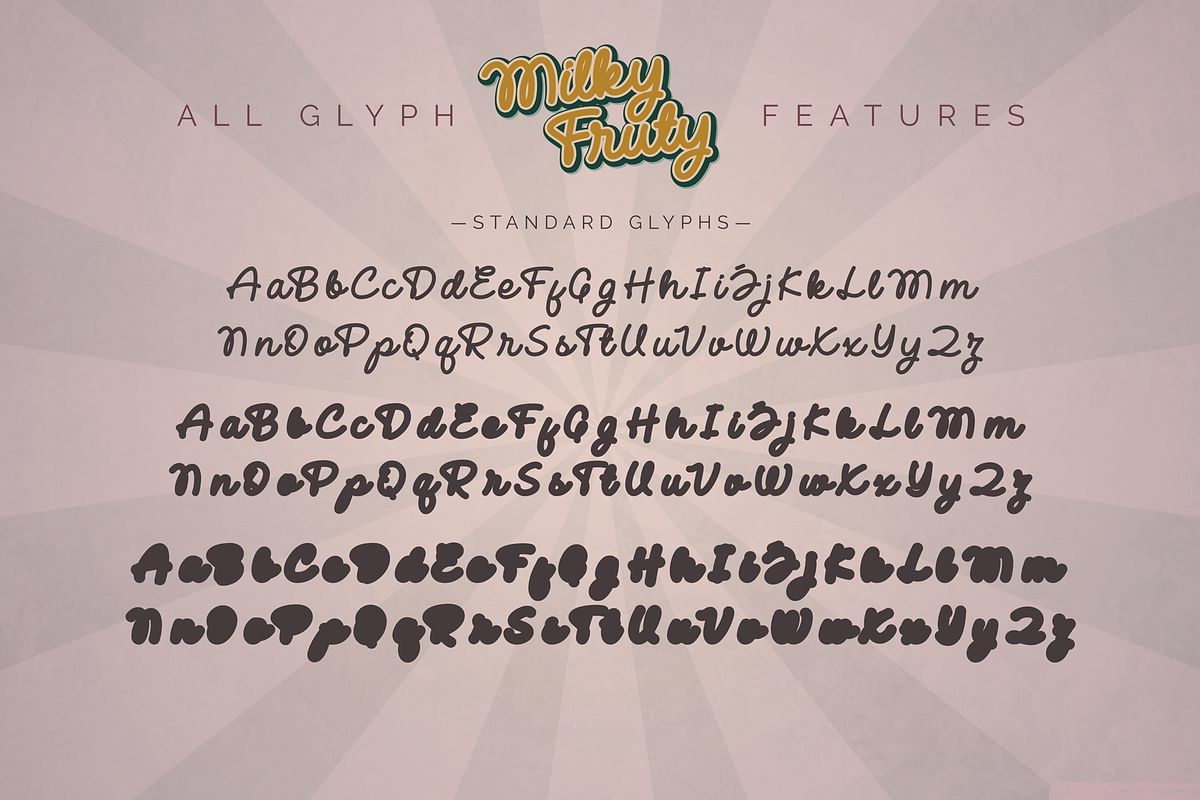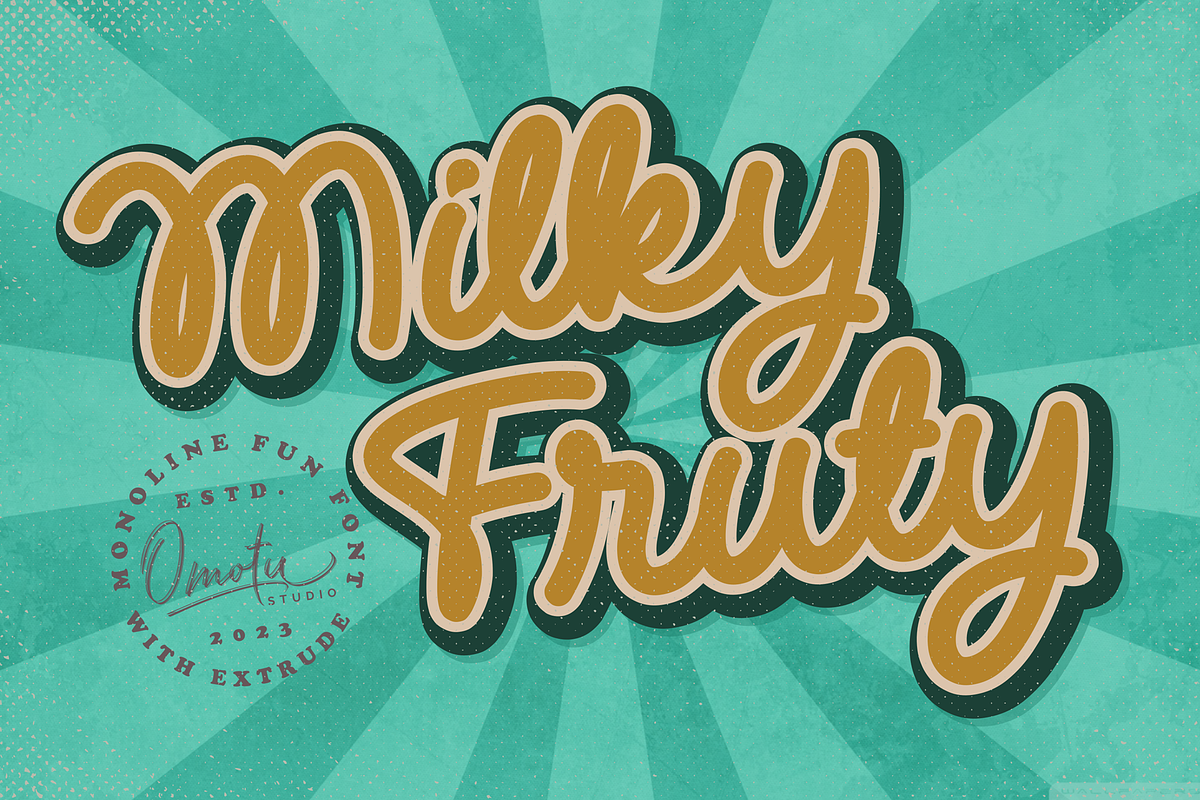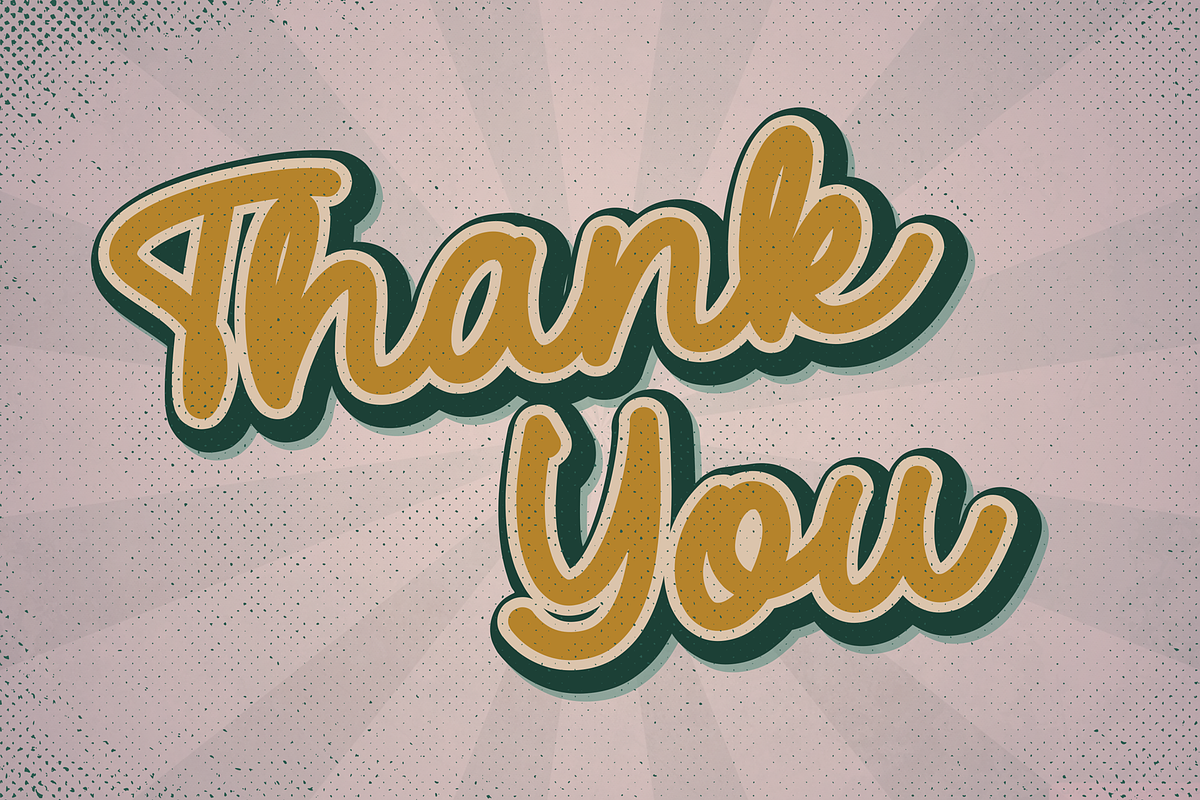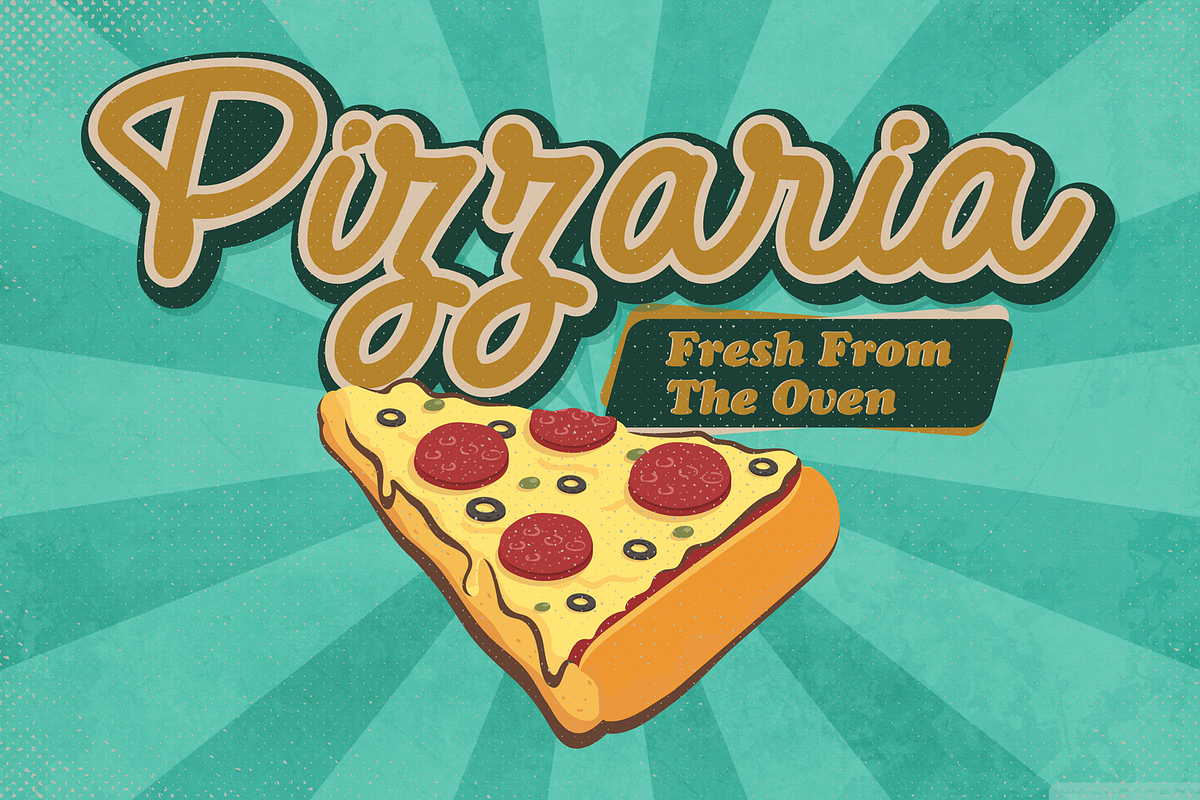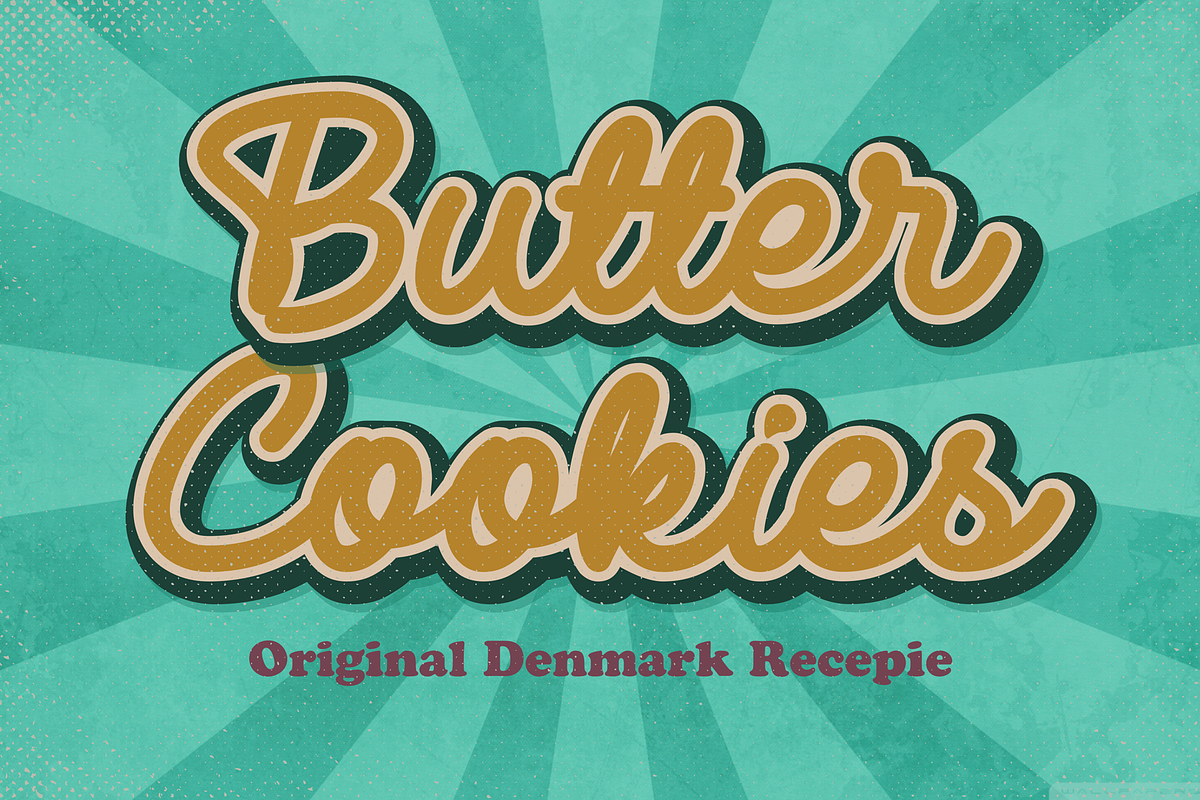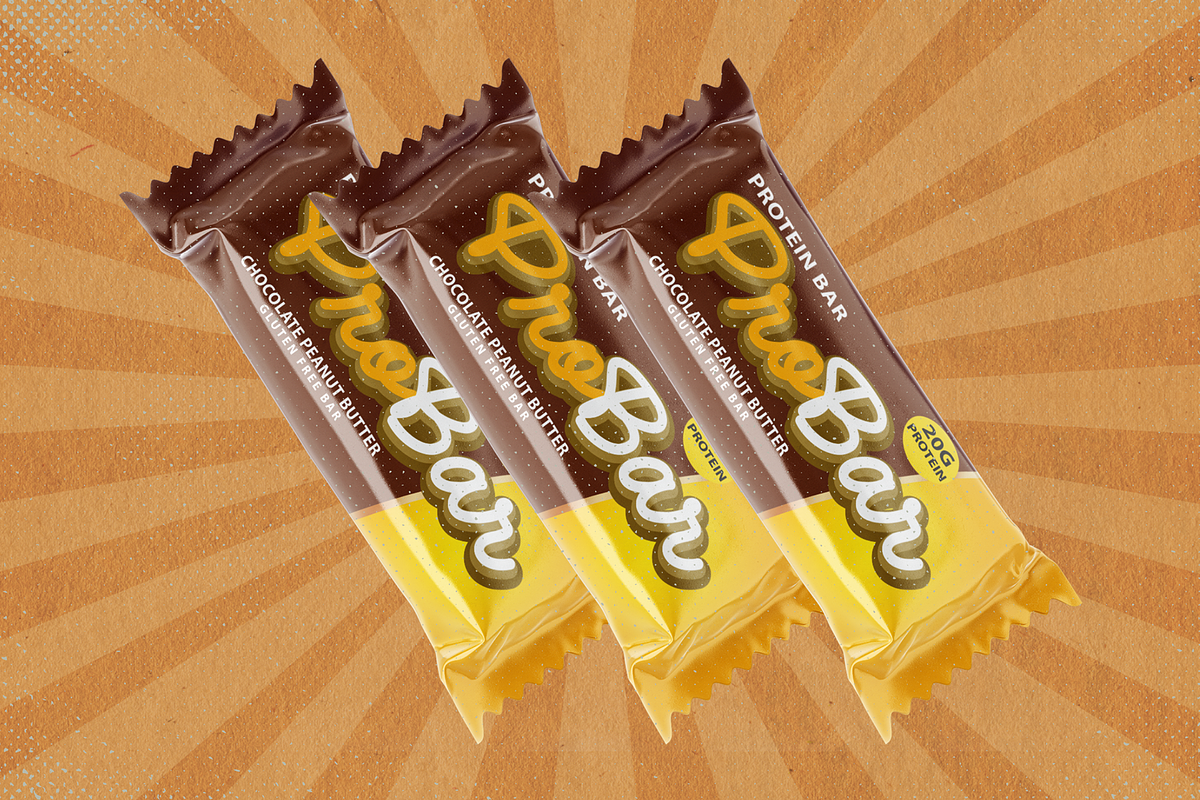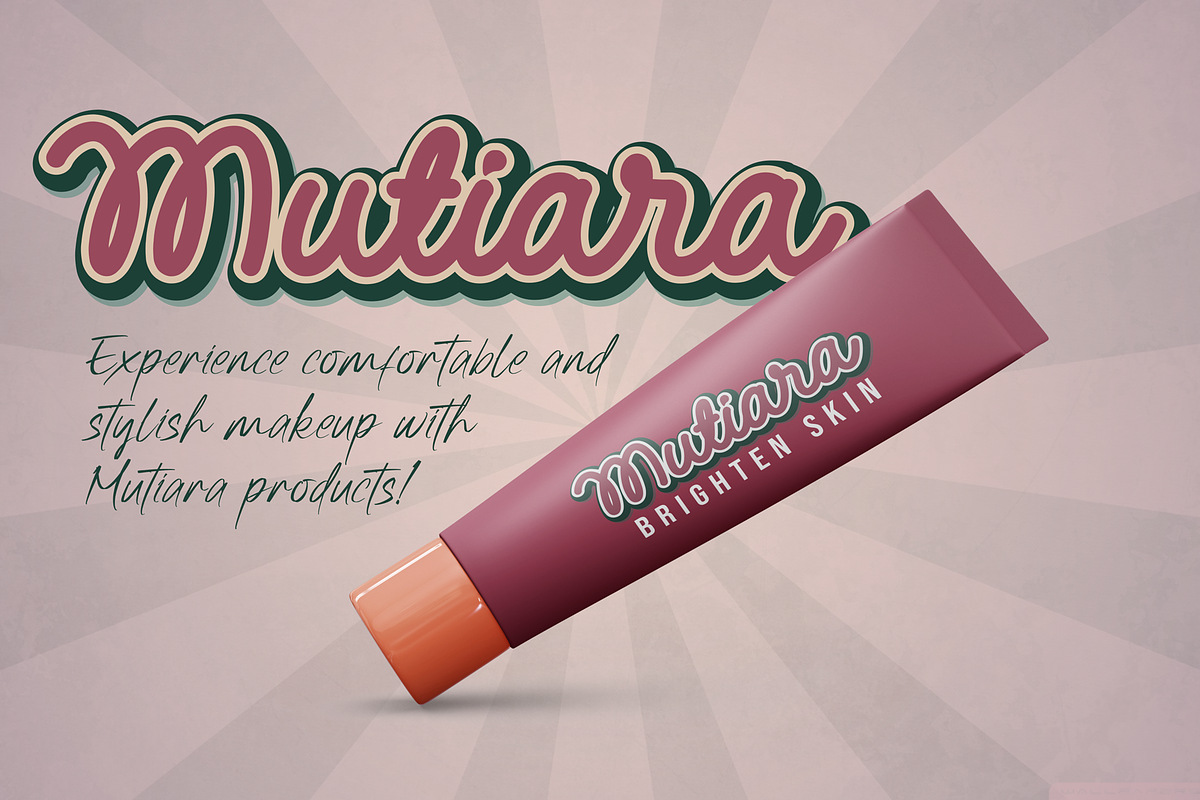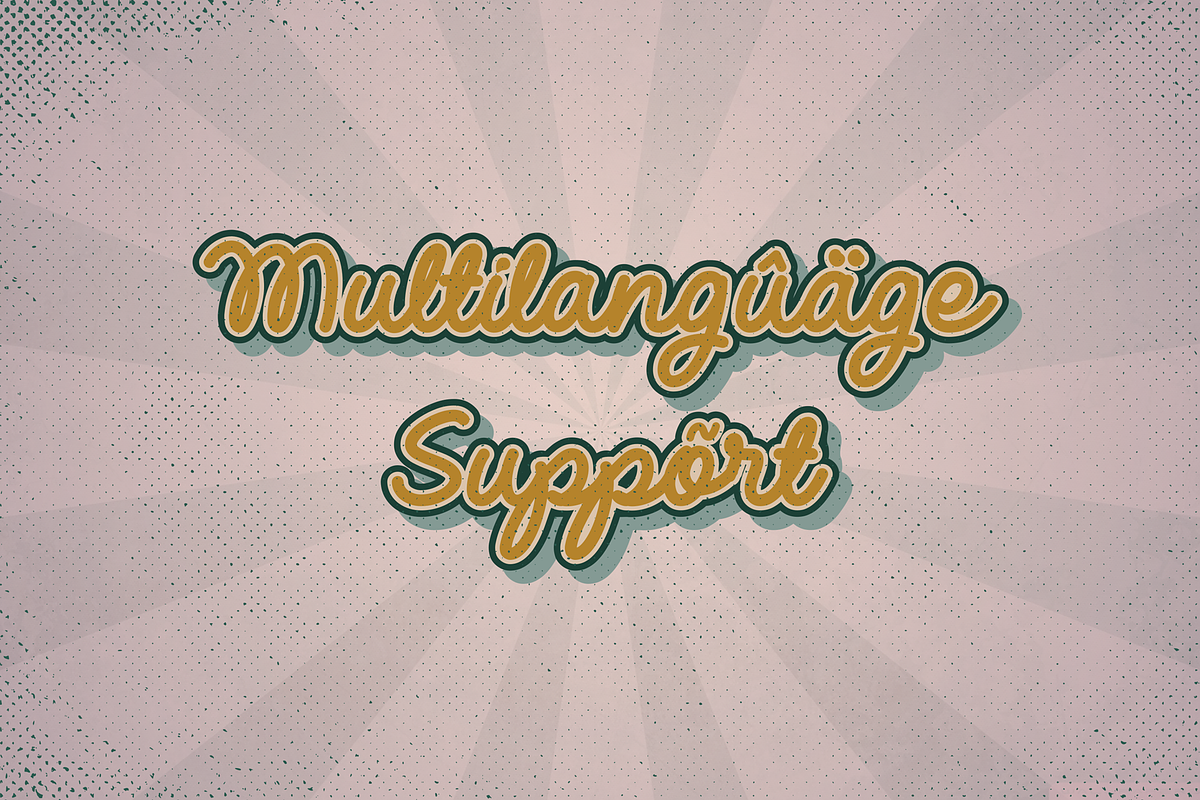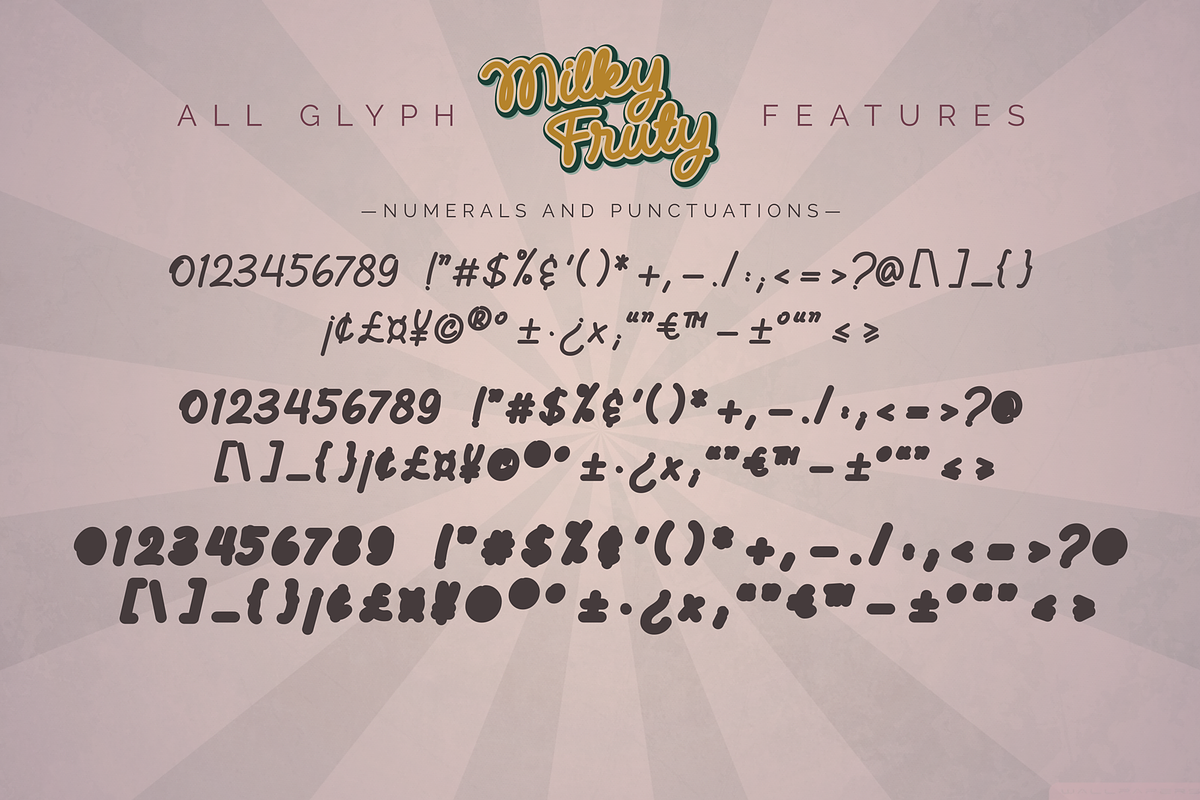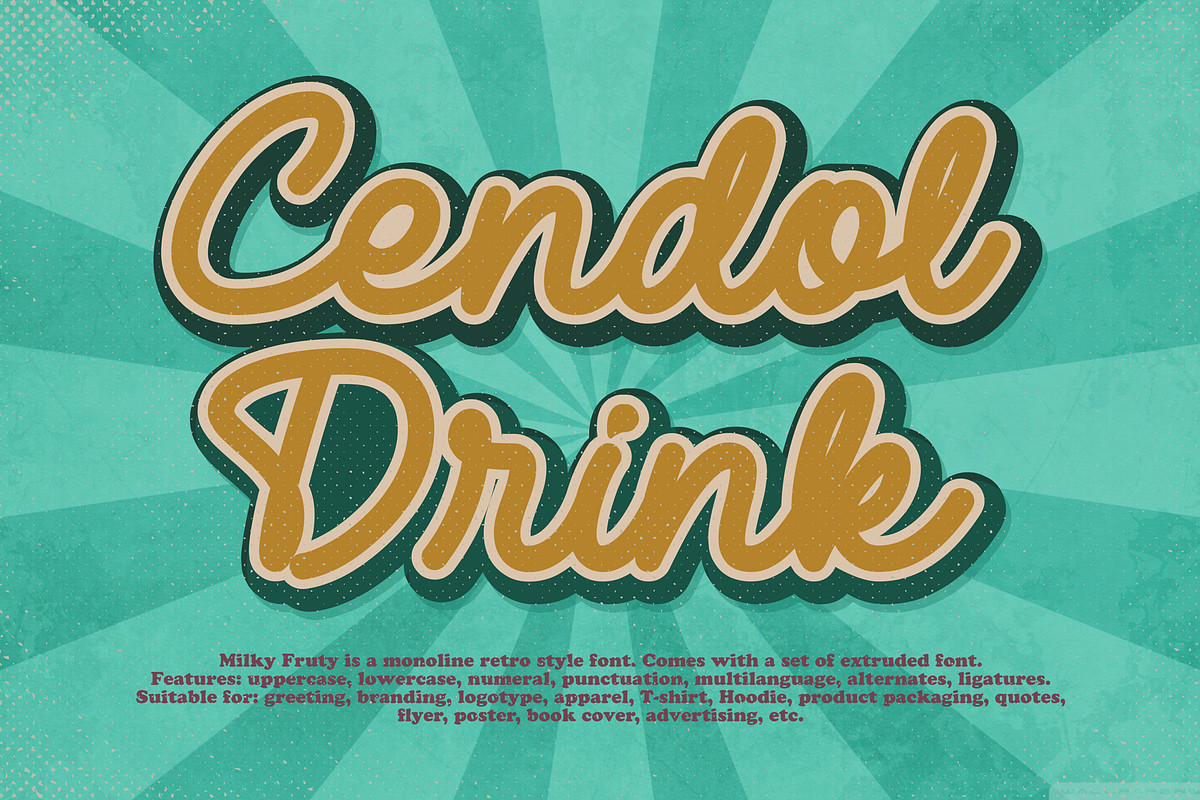
Milky Fruty
Milky Fruty! A monoline script font. Comes with two styles, regular and rounded. Milky Fruty font is suitable for branding, logotype, apparel, T-shirt, Hoodie, product packaging, quotes, flyer, poster, book cover, advertising, etc.
- Features: Uppercase, lowercase, numerals, punctuations, extrudes, and ligatures Accessible in the Adobe Illustrator Glyphs panel, or under Stylistic Alternates in the Adobe Photoshop OpenType menu, Adobe InDesign, Corel Draw, even work on Microsoft Word